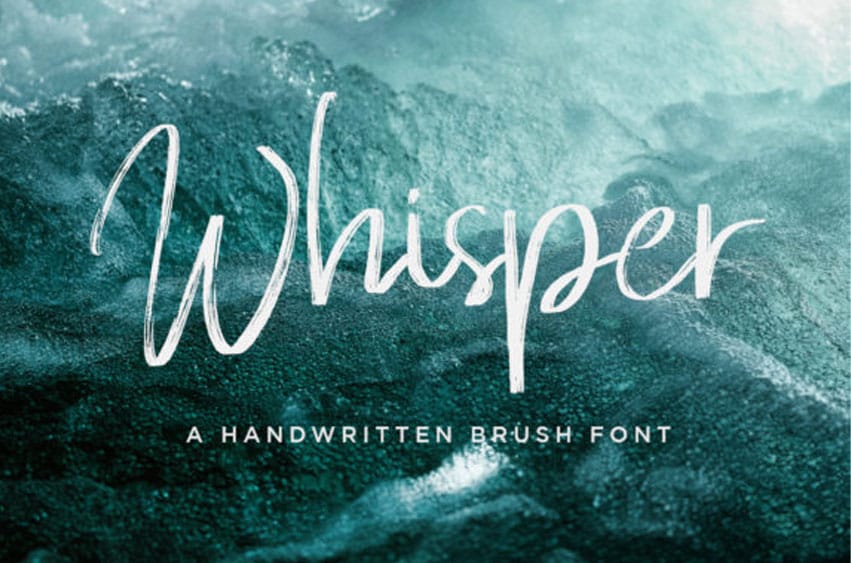
Whisper Brush Font is a unique handwritten brush font.
Its charming flow and style make it perfect to use in a variety of projects!
Whisper Brush Font is a unique handwritten brush font.
Its charming flow and style make it perfect to use in a variety of projects!